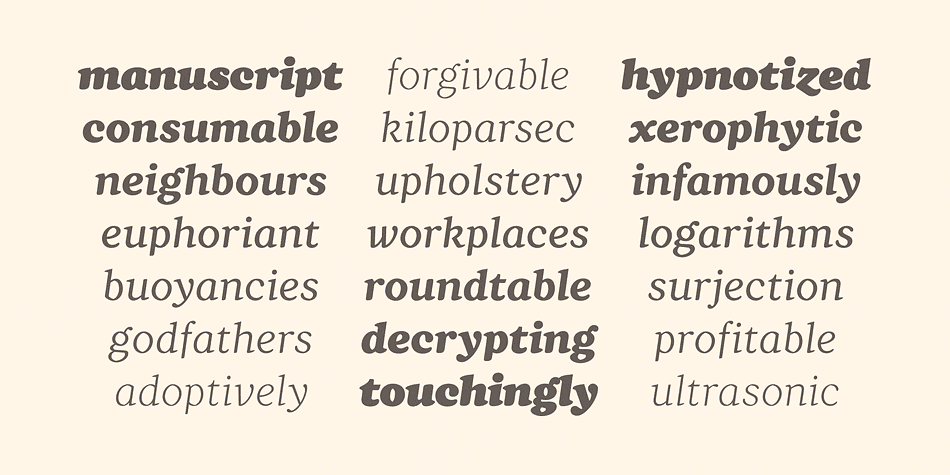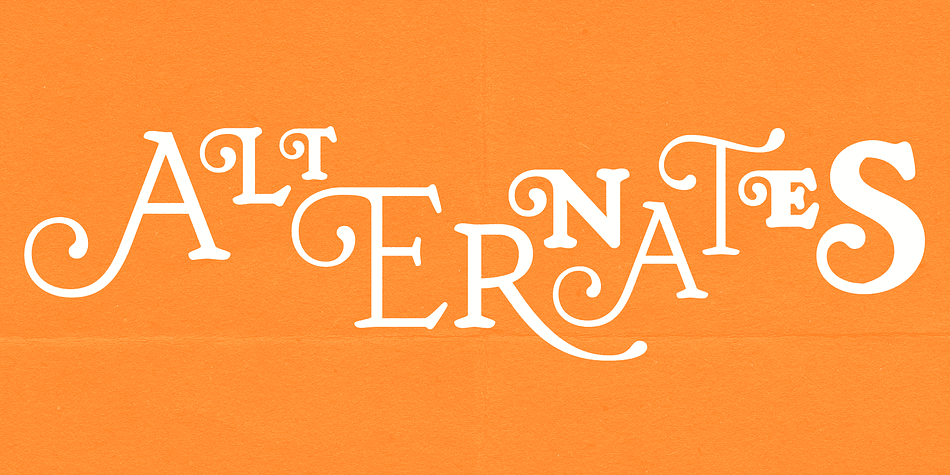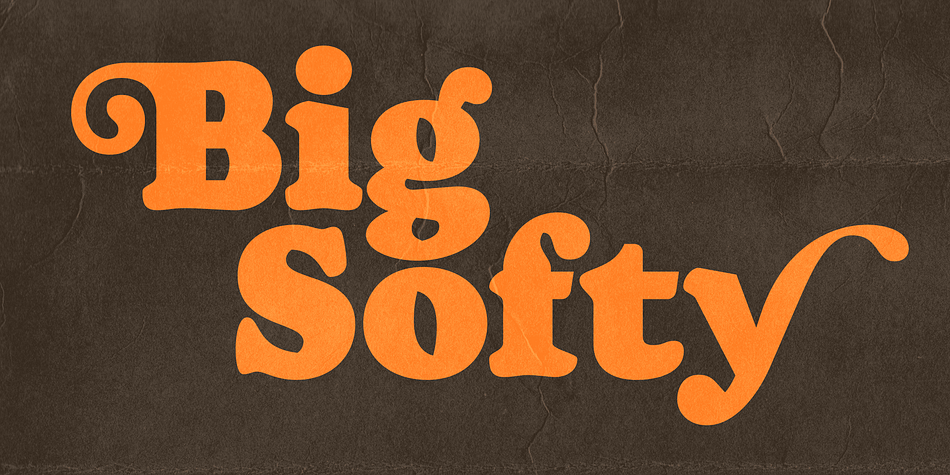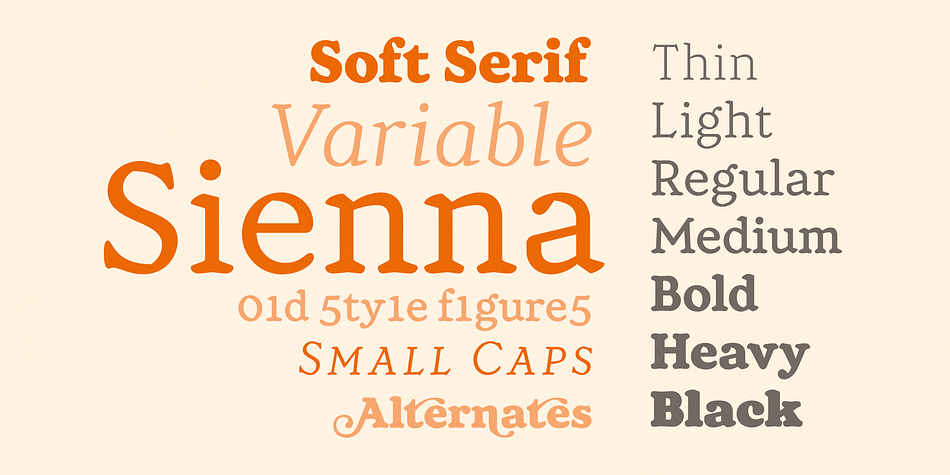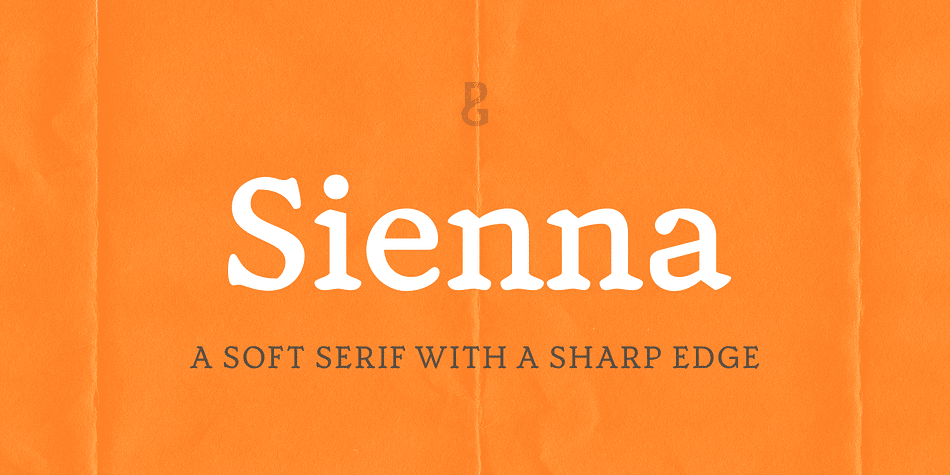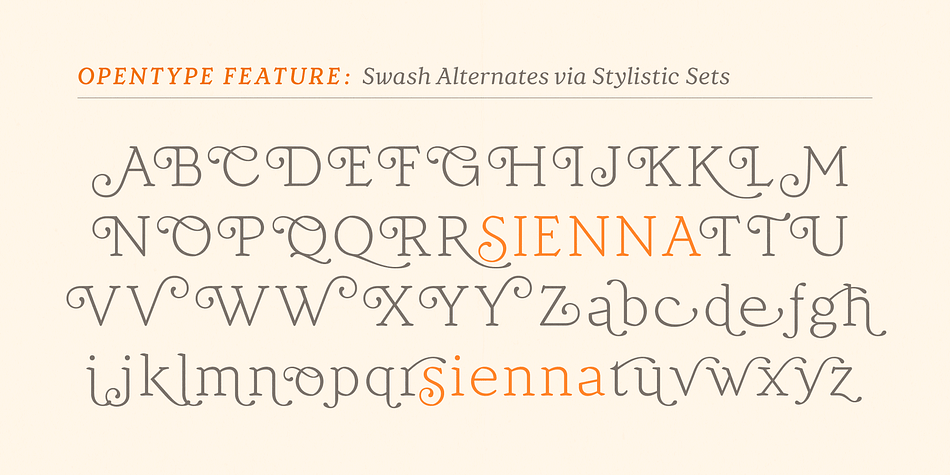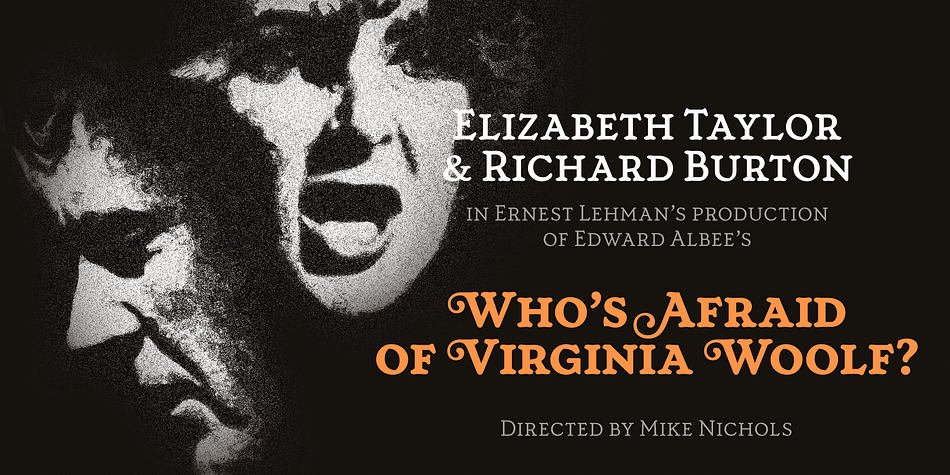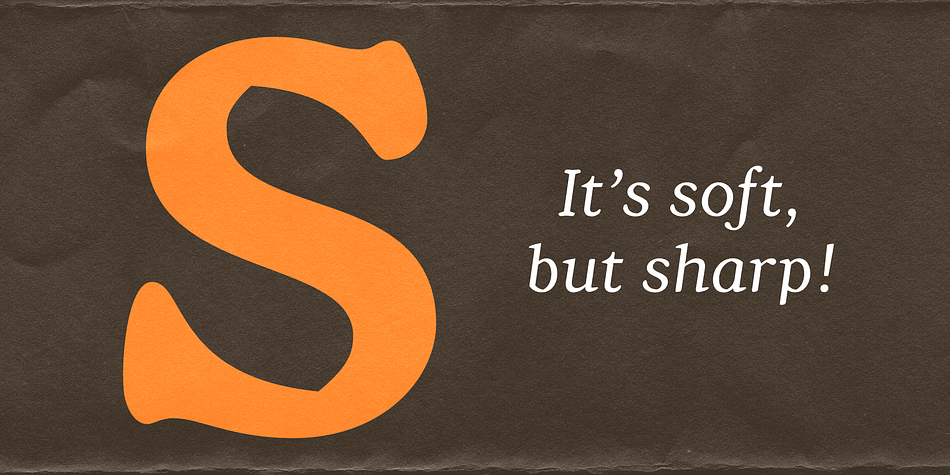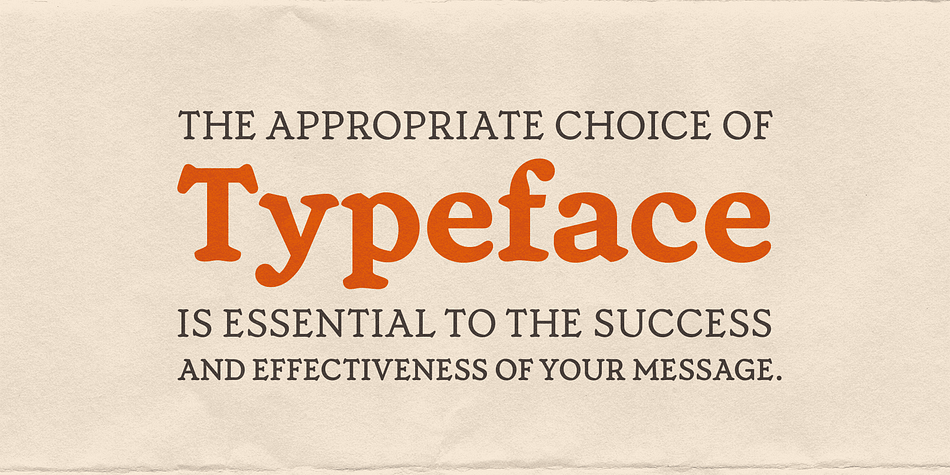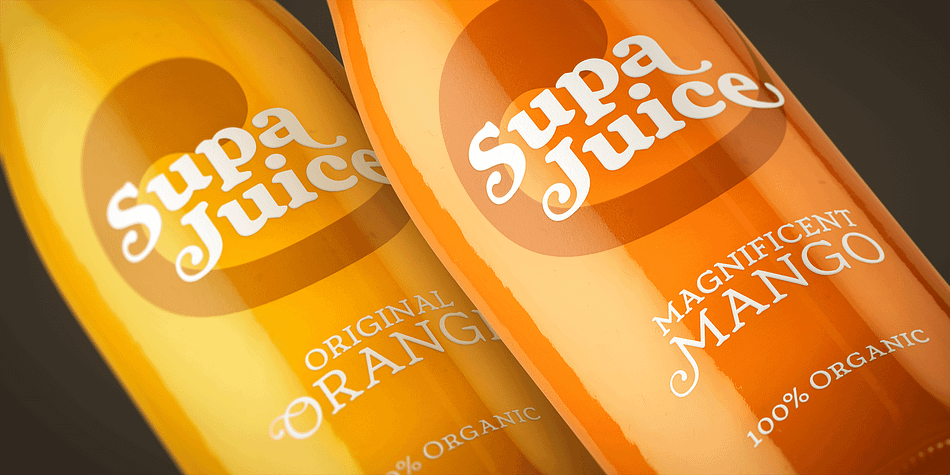
Sienna
Designed by Paulo Goode, Sienna is a serif font family. This typeface has sixteen styles and was published by Paulo Goode.
Sienna is a soft serif typeface designed for both text and display purposes. Its soft and sharp structure creates an unusual, yet pleasing appearance. This leads to a comfortable reading experience with enough personality to create impactful titles and headlines, and Sienna will really shine in your branding projects.
Variable versions of the fonts are available allowing you to fine tune the weight to your exact liking. Small Caps are included (along with their matching diacritics) – adding another layer of versatility to this typeface. Proportional Lining figures are an option if you prefer them to the default Old Style figures.
A number of swash alternates enhance Sienna, giving you the opportunity to add more flair and personality to your title and branding designs. Simply activate Stylistic Sets to start adding flourishes to your typography.
There are 14 fonts altogether, with 7 weights in roman and italic from Thin to Black styles. Sienna has an extensive character set (800+ glyphs) that covers every Latin European language.
Key features:
• 7 weights in both roman and italic
• Variable fonts included with full family
• 59 Alternates
• 8 Ligatures
• Small Caps
• Full European character set (Latin only)
• 800+ glyphs per font.